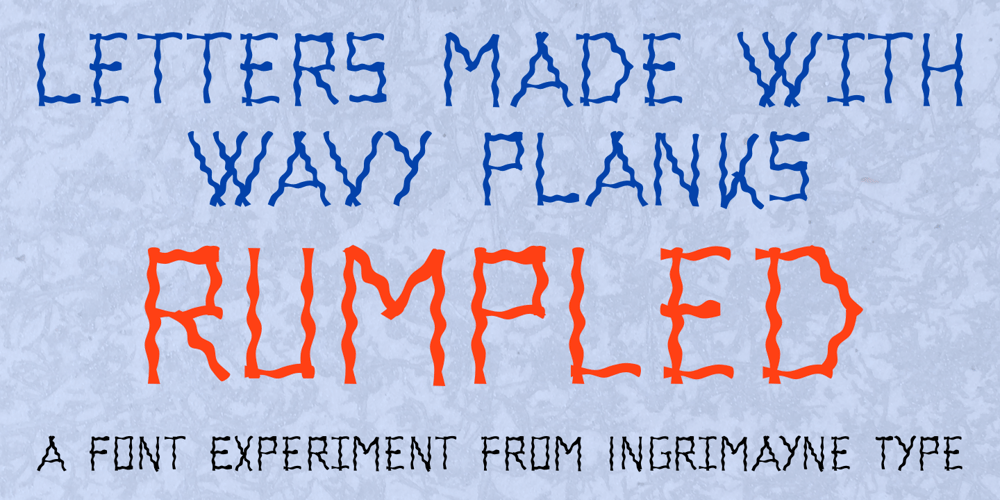
Rumpled Font Family was designed by Robert Schenk and published by Ingrimayne Type. Rumpled contains 4 styles and family package options. TapeUp, Tinkerer, and Rumpled are based on the template I used for several letterbat fonts—fonts made of wrenches and bolts, hammers, or paper clips.TapeUp can be thought of as a font made from masking tape, and Rumpled is the same design but the tape pieces are wavy. Tinkerer is the same design but with elements that resemble what might happen if one constructed letters from Tinker Toys. All are caps only, but some of the shapes on the lower-case keys differ from the corresponding shapes on the upper-case keys. The Rumpled family has four members, the regular, an oblique, a shadowed, and an oblique shadowed.